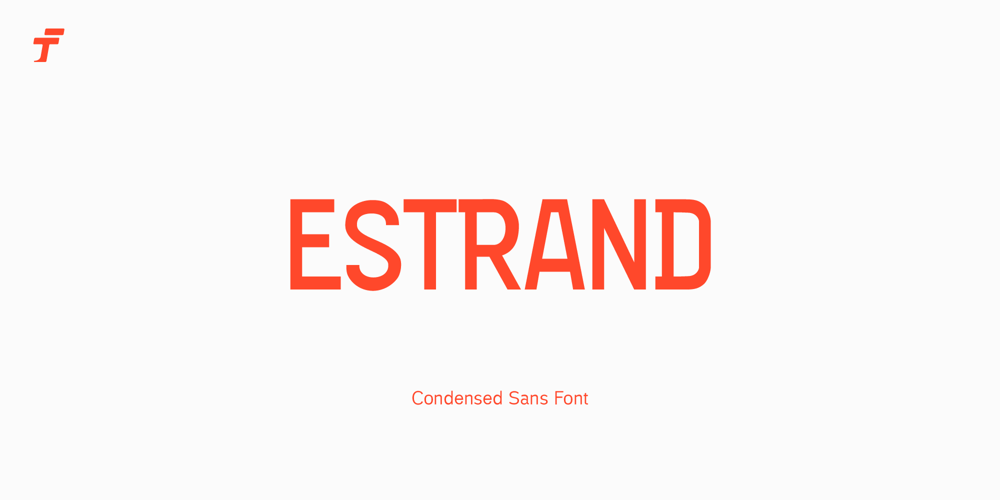
Estrand Font Family was designed by Adrian Syauqi and published by Firstype Studio. Estrand contains 2 styles and family package options. Hello, design enthusiasts! Allow me to present “Estrand” – a distinctive Display font with a penchant for sharp angles and bold character.Estrand features an edgy and angular design, characterized by rigid corners and a slightly condensed form that exudes a sense of precision and boldness. The font is crafted with sharp angles, giving it a unique and commanding presence. Its condensed nature ensures a sleek and modern aesthetic, making it an excellent choice for designs that demand a tinge of fierceness.Key Features: Sharp Angles and Bold Character: Estrand embraces a sharp design with well-defined angles, adding a touch of assertiveness to your typographic compositions. Slightly Condensed Form: The font’s condensed structure contributes to a sleek and modern look, allowing for efficient use of space in various design applications. Distinctive and Commanding: With its firm personality, Estrand stands out as a font that commands attention and leaves a lasting impression. Versatility: Whether applied to branding, logos, or any design project, Estrand’s unique characteristics make it adaptable to a wide range of creative endeavors. Estrand is your go-to font for designs that demand a sharp and distinctive edge. If you have any inquiries or require further information, feel free to reach out. Your feedback is highly appreciated. Thank you for considering “Estrand” for your design endeavors.